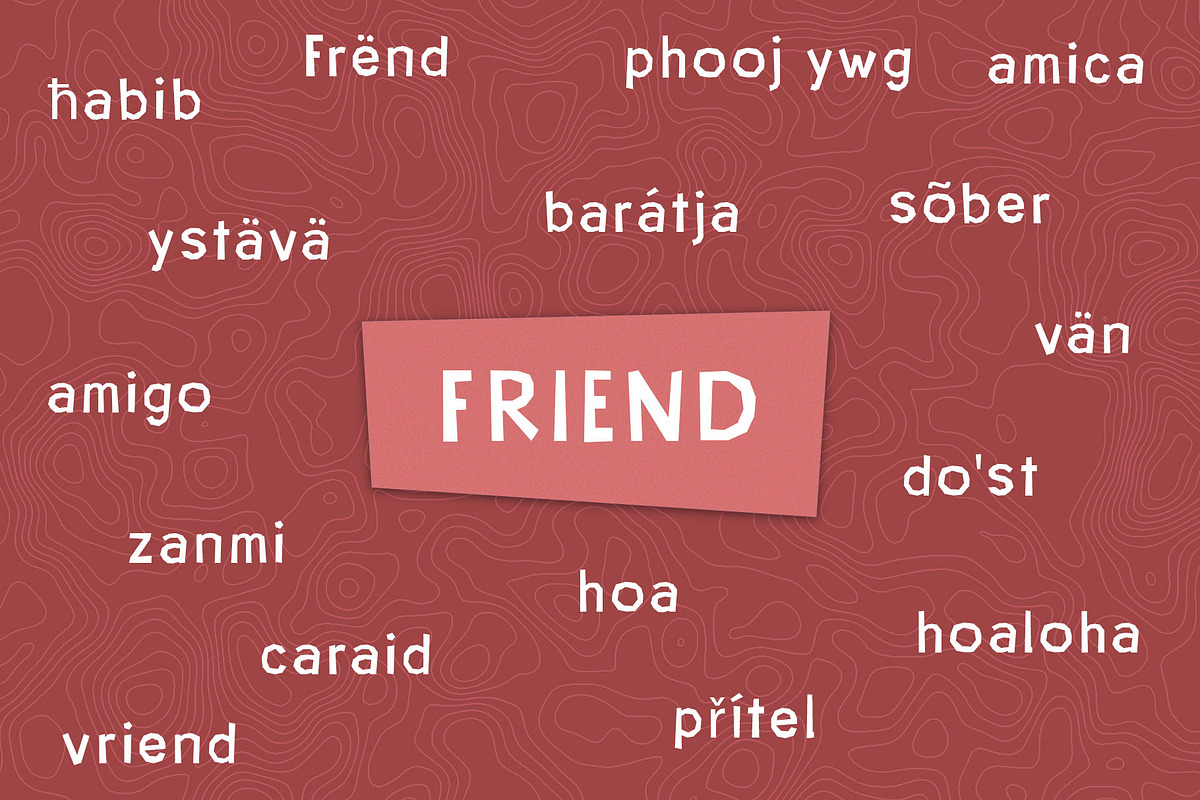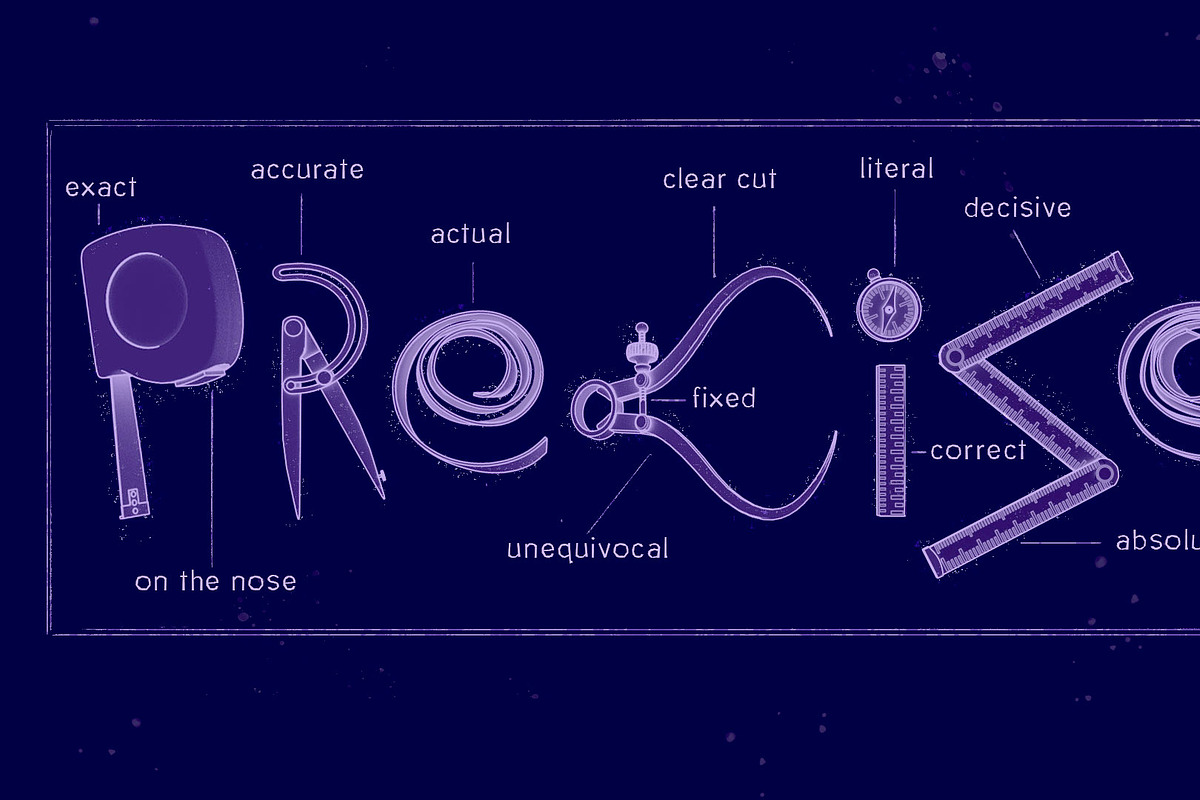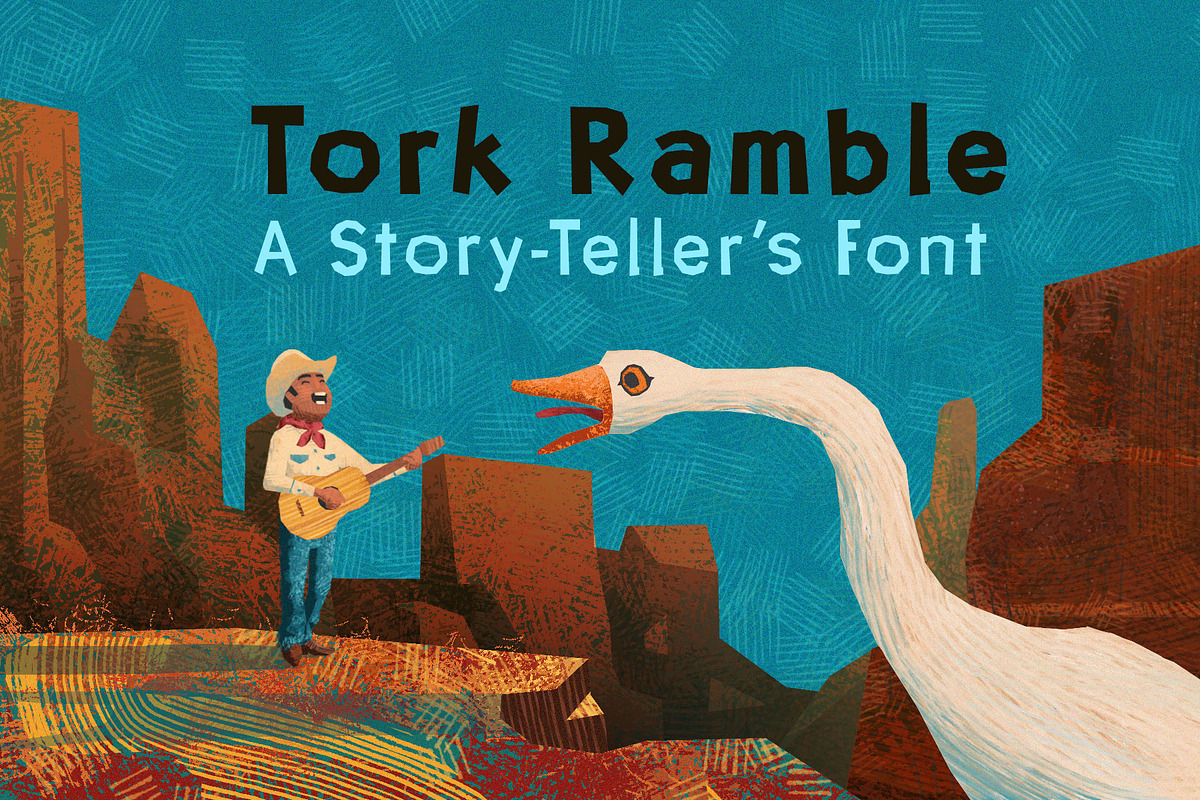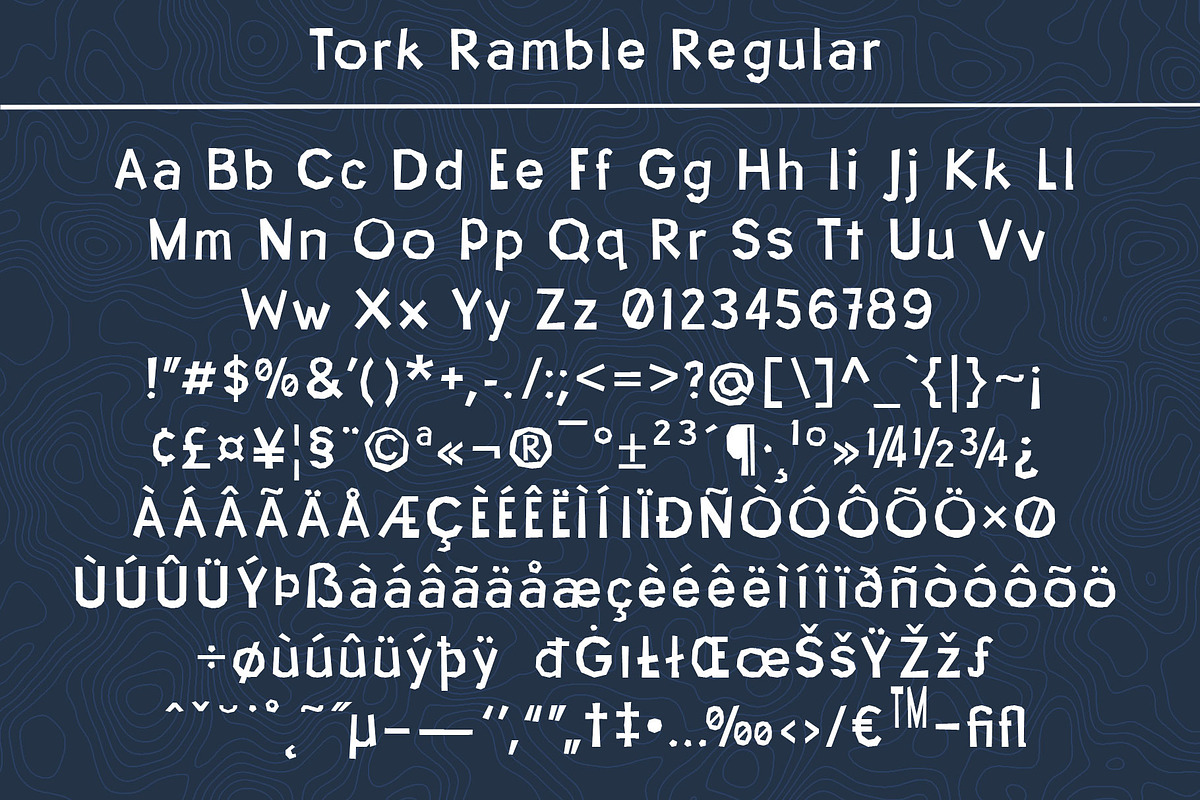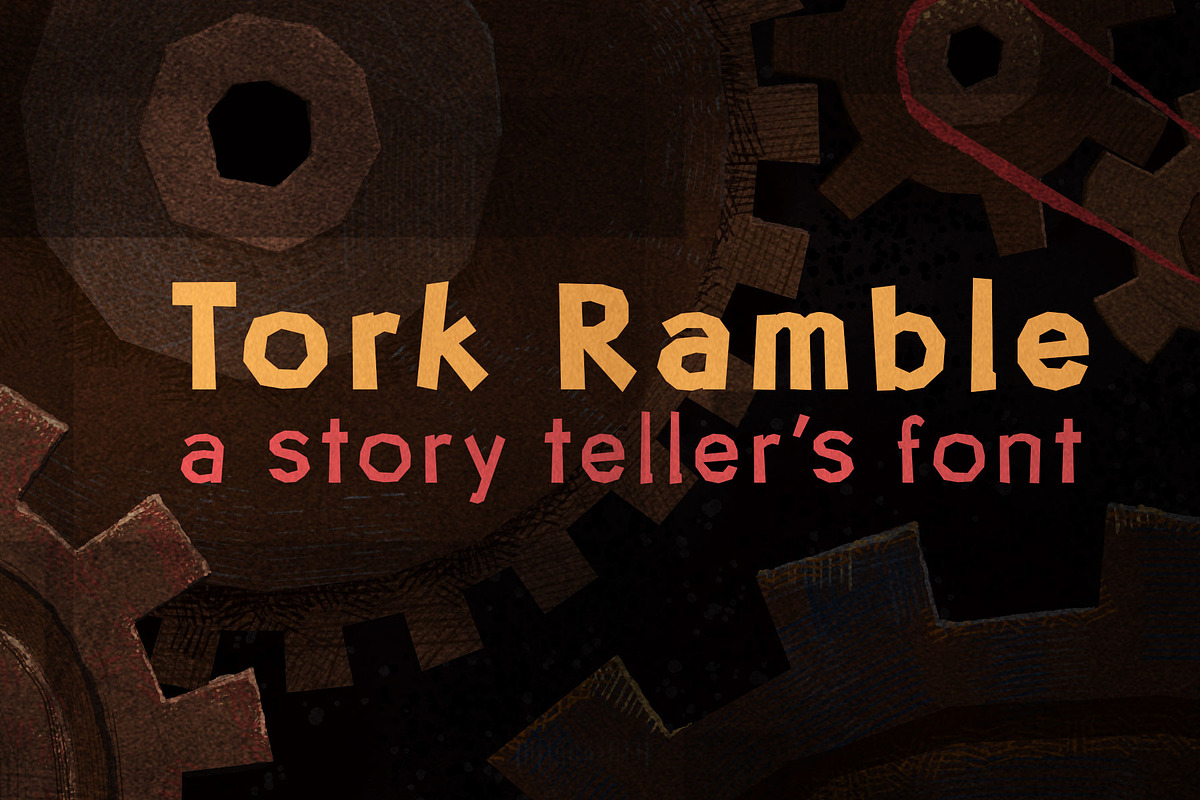
Tork Ramble
Tork Ramble is a dynamic chonky san serif font for your illustrations, comics, animations, and games! Looks great on both dark and light backgrounds! Comes in three weights--regular, bold, and thin.